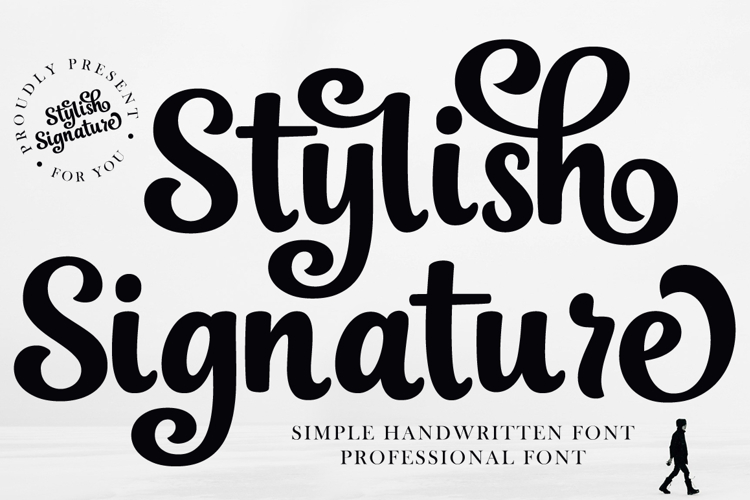
Imbued with an understated elegance, Stylish Signature delivers the charm of handwritten typography to your designs. Whether it’s gracing the envelope of an intimate letter, adorning a tastefully curated invitation, or adding zest to a range of delectable food products, Stylish Signature enhances and enlivens. It indeed shines as the crown jewel in titles, bringing a level of sophistication to match its namesake – the perfect union of panache and finesse.